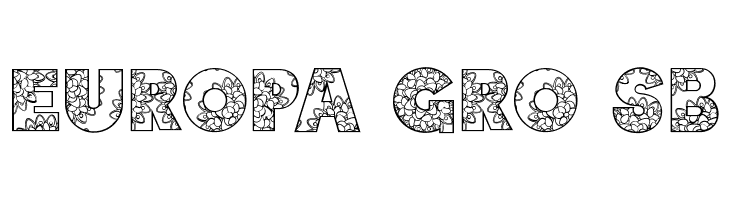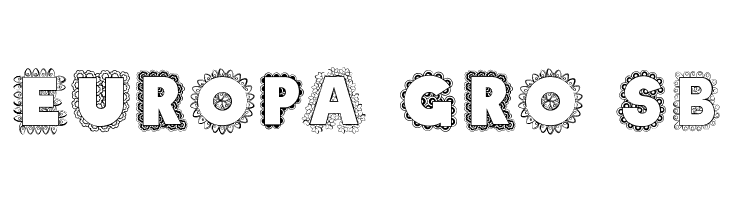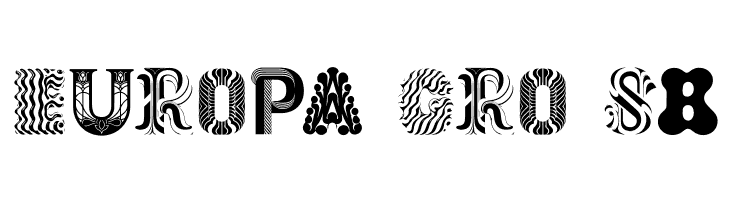
GutterflyRegular Font
Font by FontKawaiiCo
A decorative font with butterfly-like, ornate characters.
Doodala Biggie Font
Font by FontKawaiiCo
A bold, decorative font with intricate doodle patterns inside each letter.
Quixoty Font
Font by FontKawaiiCo
A decorative and eclectic font with unique patterns for each uppercase letter.
Doodala Bordered Font
Font by FontKawaiiCo
A decorative font with bold uppercase letters, each encased in unique border patterns.
Fish Islands Font
Font by FontKawaiiCo
A bold, rounded, and playful font with a cartoonish style.
Tulie Font
Font by FontKawaiiCo
A diverse and artistic font with unique, playful characters.